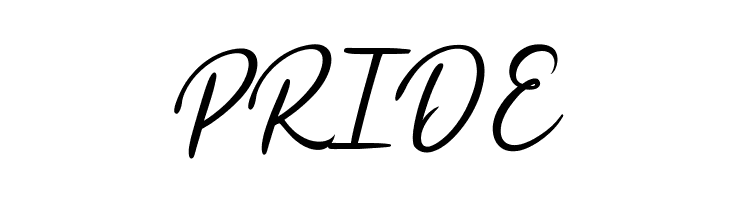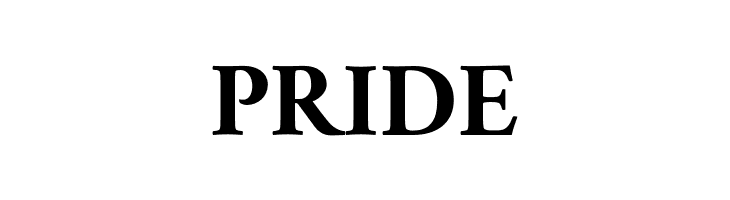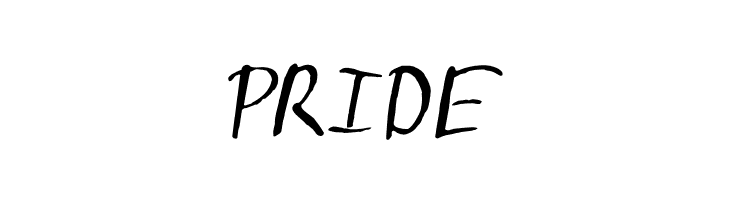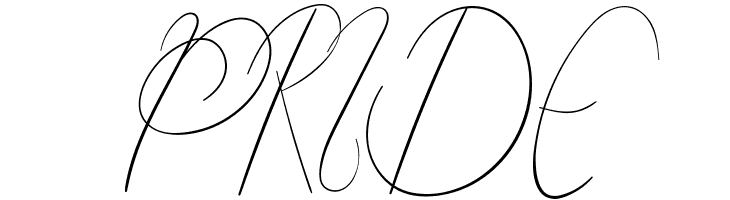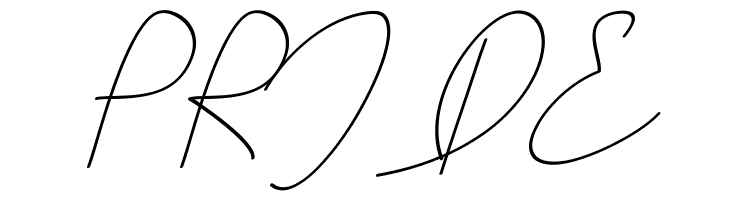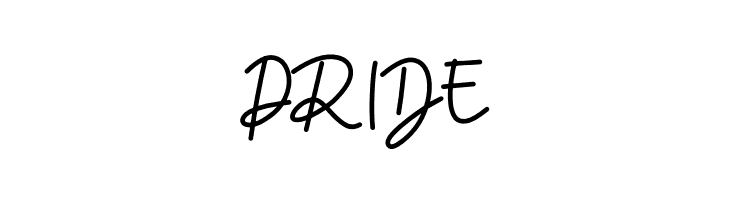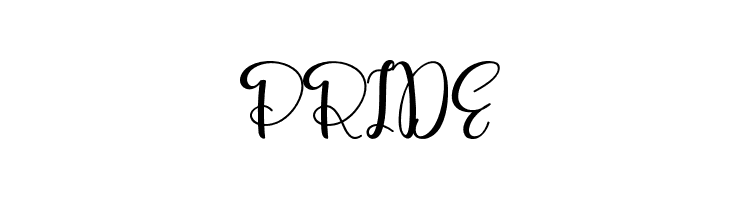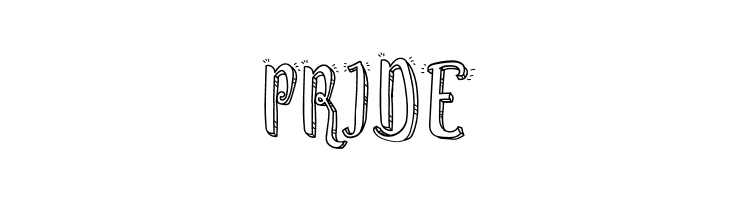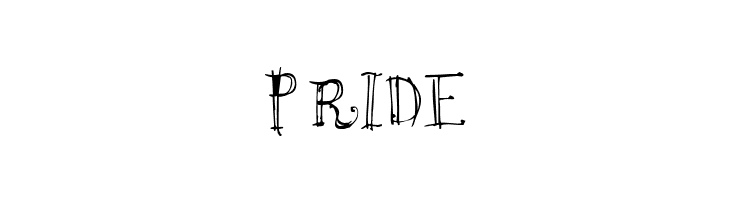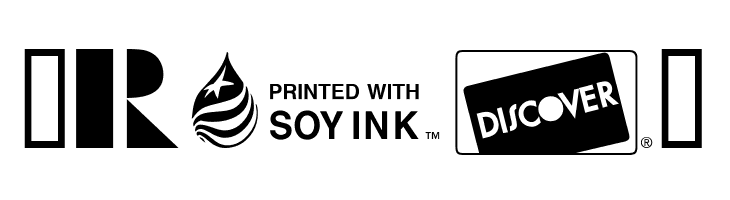
( Fonts by Otto Maurer Design )
A whimsical, hand-drawn font with curly embellishments and dynamic strokes.
( Fonts by Otto Maurer Design )
A whimsical, shadowed font with curly serifs and playful design.
A bold, angular font with a futuristic and edgy design.
A bold, gothic-style font with intricate details and ornamental flourishes.
( Fonts by Letters & Numbers )
A playful, textured font with a crayon-like, handcrafted appearance.
( Rudhi Sasmito - creativemarket.com/rudhisasmito )
A bold, flowing script font with dynamic curves and elegant style.
( Fonts by Rick Mueller )
A bold, decorative dingbat font with credit card and commercial icons.
A lively and flowing script font with smooth, cursive strokes and elegant loops.
A bold, classic serif typeface with high contrast and elegant serifs.
Elegant serif font with a classic italic slant and moderate contrast.
( Cotbada Studio - Isfani - creativemarket.com/Cotbada_studio )
A lively and flowing script font with expressive curves and elegant loops.
( Eva Barabasne Olasz - www.etsy.com/ie/shop/digitaltypefaces )
A cross-stitch styled font with an embroidered, handcrafted appearance.
An elegant script font with flowing, connected characters and ornate flourishes.
( hechicero - www.ff-omeganebula.com )
A decorative and intricate font with fantasy-themed glyphs and ornamental design.
( Fonts by Herofonts™ )
An elegant script font with flowing, cursive letterforms and intricate flourishes.
( Fonts by Billy Argel )
A bold, distressed font with a grunge, urban street art vibe.
A bold, textured script font with a brush-like, dynamic appearance.
A bold, interconnected script font with smooth, flowing lines and a modern twist.
A playful, hand-drawn script font with whimsical decorative elements.
A playful, whimsical script font with a handwritten, cursive style.
( Khurasan - Syaf Rizal - creativemarket.com/khurasan?u=khurasan )
A playful, cursive script font with elegant loops and swirls.
A graceful monoline script font with fluid, elegant strokes.
( 211178 Creative Agency - Morten Talleivsen - www.211178.no )
A modern, bold sans-serif font with geometric shapes and uniform strokes.
( 211178 Creative Agency - Morten Talleivsen - www.211178.no )
A modern, bold sans-serif font with geometric precision and high legibility.